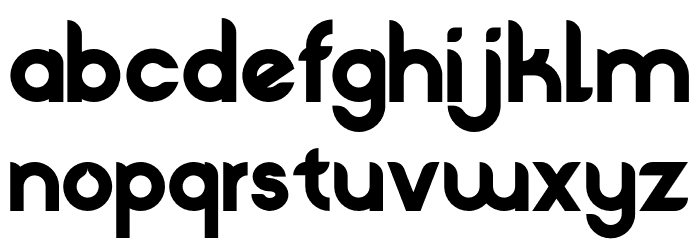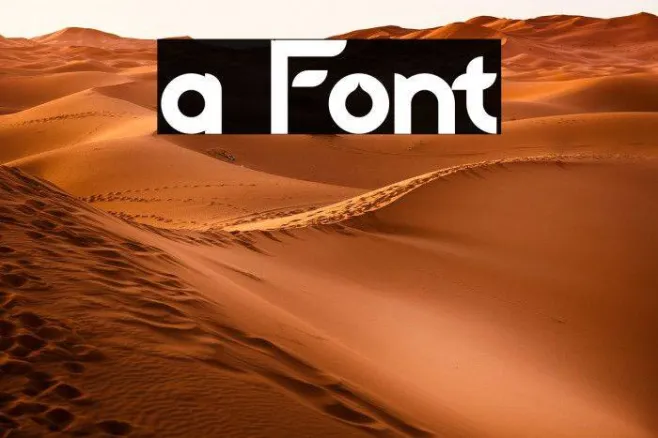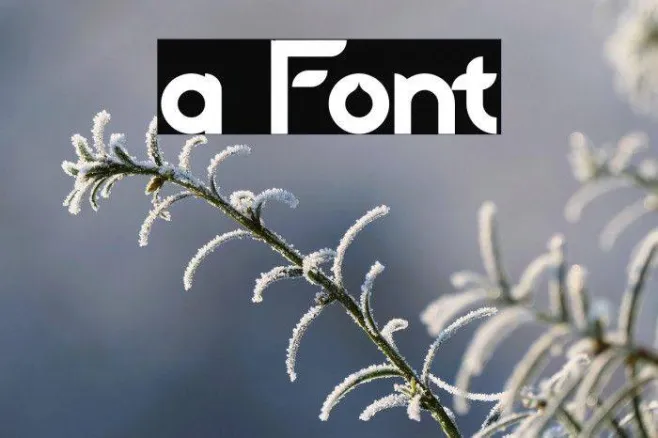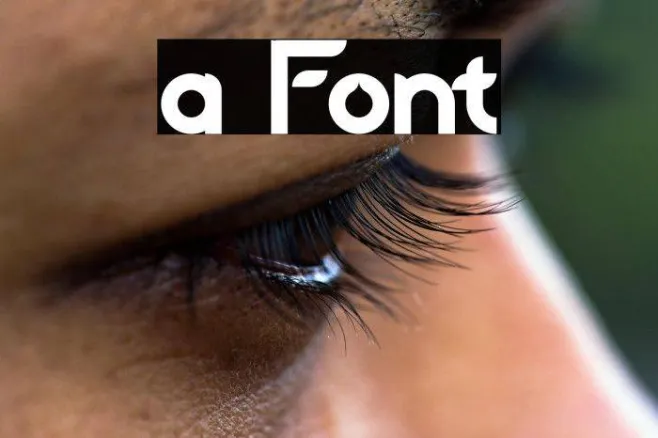
2a Font
This font features a bold and geometric design with a modern twist. The uppercase letters are characterized by sharp angles and clean lines, creating a futuristic and edgy appearance. The lowercase letters maintain a consistent weight, offering a smooth and rounded look that contrasts with the angular uppercase. The font includes a full set of numerals and a selection of special characters, making it versatile for various design needs. Its unique style is both eye-catching and functional, suitable for projects that require a strong visual impact.
A bold, geometric font with modern and edgy characteristics.
- Proposed Projects: Ideal for branding, posters, headlines, and digital artwork that require a modern and striking appearance.